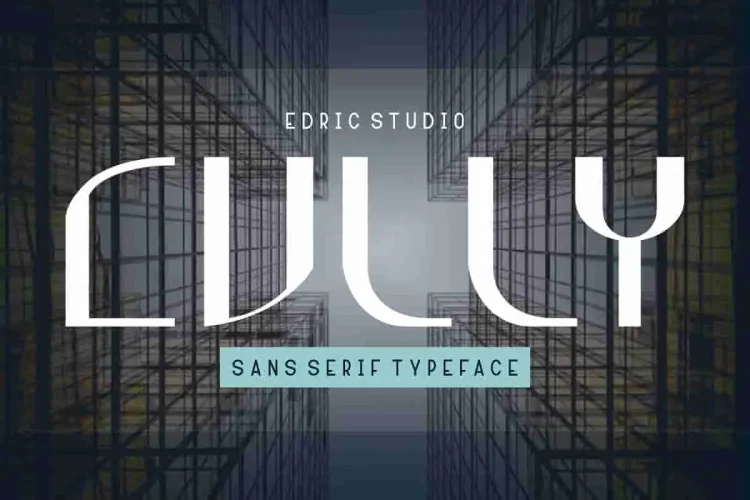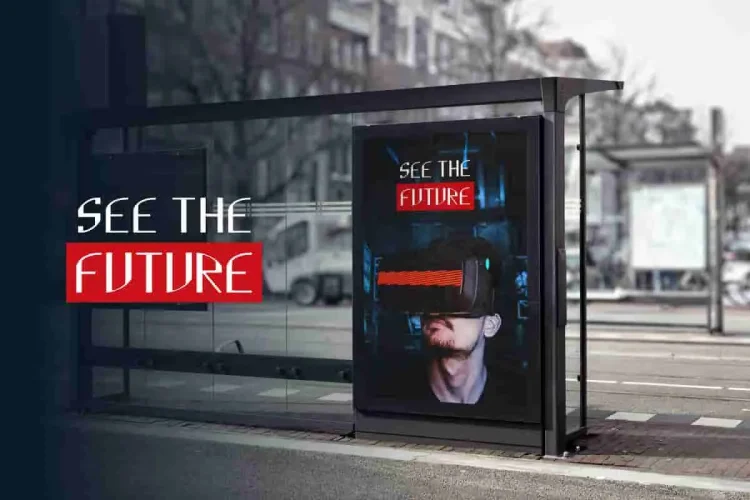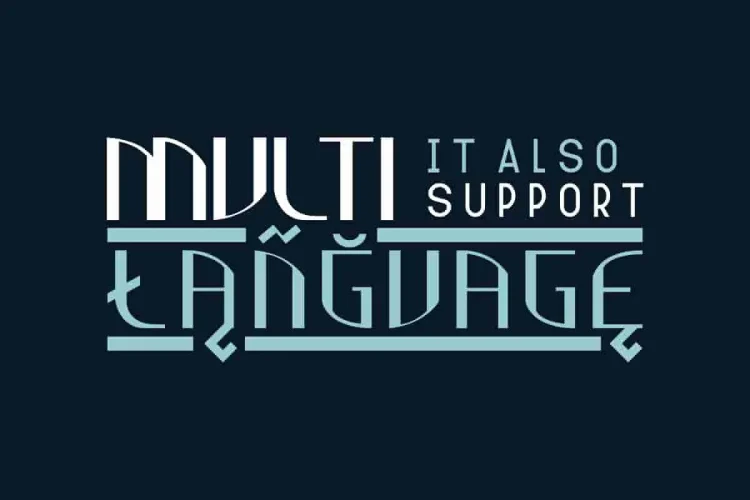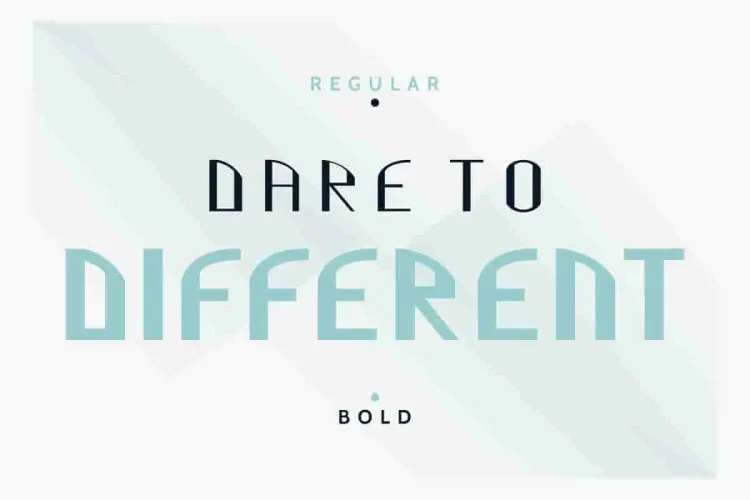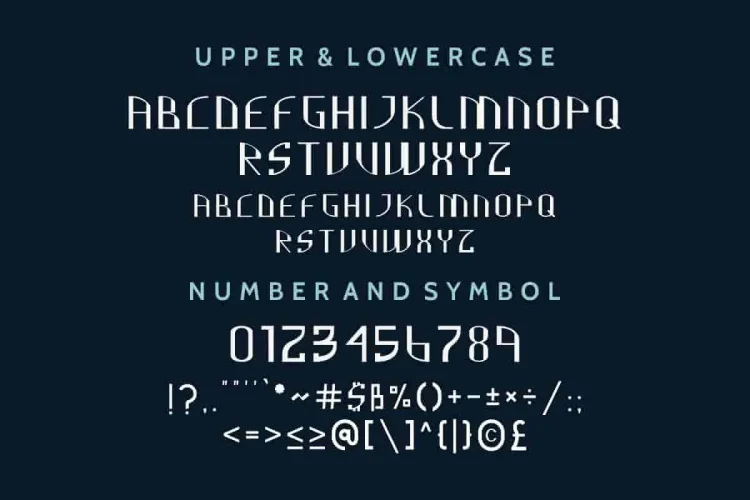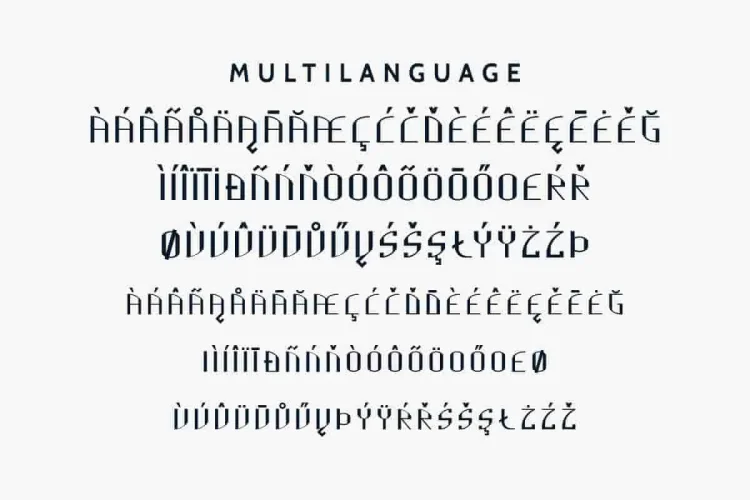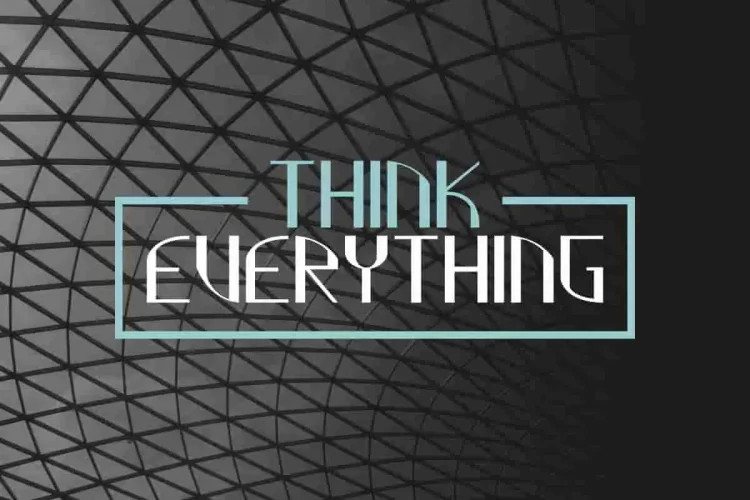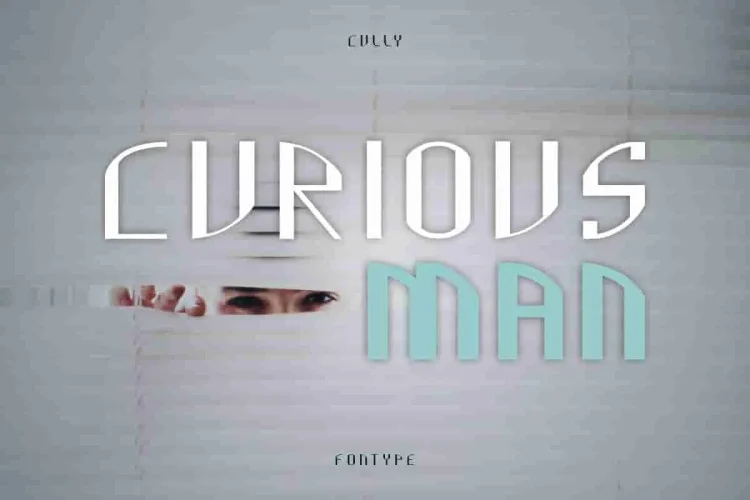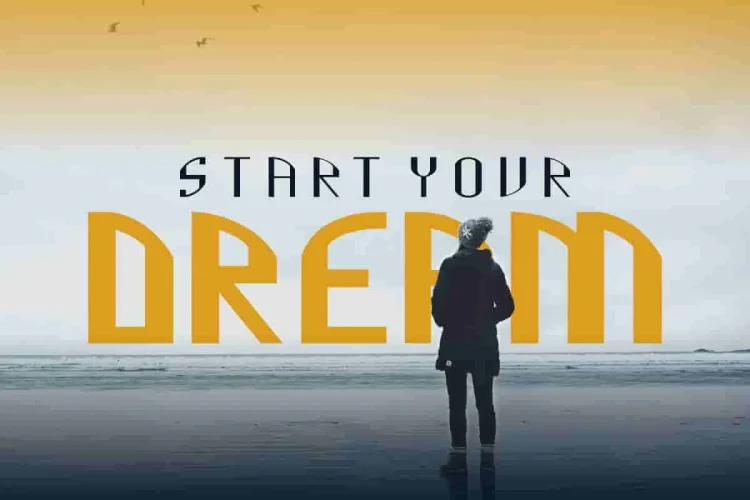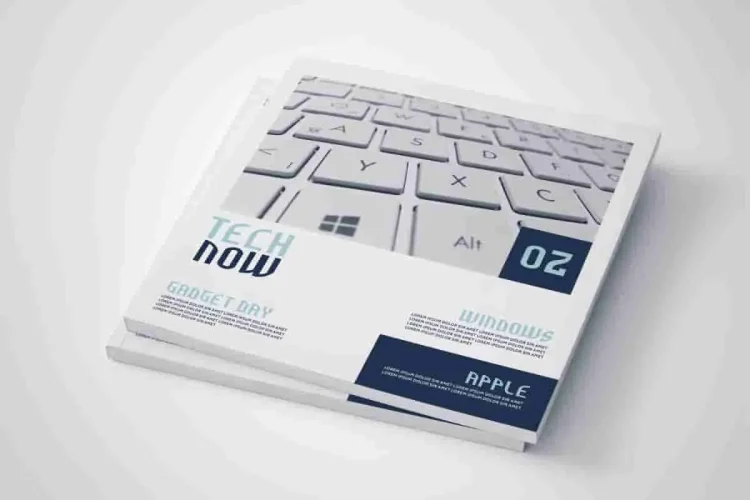
Cully Decorative Futuristic Font
Introducing our new font Cully! This is a modern decorative Futuristic Font with fresh and stylish glyph. Originally released in 2017 and reborn with a refined update in 2019, Cully brings a fresh, decorative touch with sleek, stylish glyphs that reflect innovation and edge.
Whether you’re designing tech logos, sci-fi posters, digital interfaces, or experimental branding, Cully delivers an ultra-modern edge. Its clean, structured lines and unique cuts create a high-tech look that’s both readable and visually impactful. From editorial headers to futuristic branding concepts, Cully adapts seamlessly while keeping your message strong and stylish.
Whether you’re designing tech logos, sci-fi posters, digital UIs, or experimental brand visuals, Cully adds an ultra-modern attitude to every composition. Thanks to its clean stencil cuts and geometric flow, it balances legibility with strong visual identity — making it ideal for everything from editorial headers to web banners.
From the bold “DIFFERENT” in the bold weight to the refined Regular used in taglines like “Dare to,” this font adapts beautifully to contrast and hierarchy. Plus, its distinct visual tone ensures your message never goes unnoticed.
What sets Cully apart is its ability to be both experimental and functional. It commands attention on posters, tech branding, magazine covers, gaming graphics, music visuals, and more. Moreover, its stencil style adds a layered depth without sacrificing clarity.